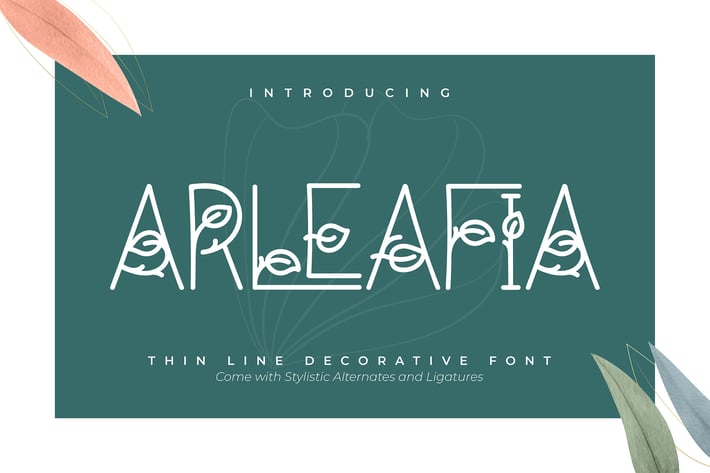
Arleafia | Decorative Font
Arleafia | Decorative Font with a calligraphy style, So beautiful on invitation like greeting cards, branding materials, business cards, quotes, posters, and more!